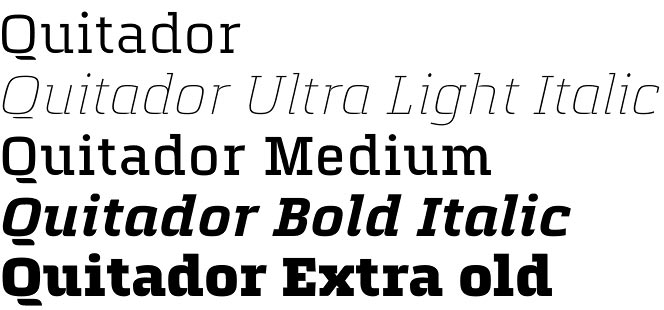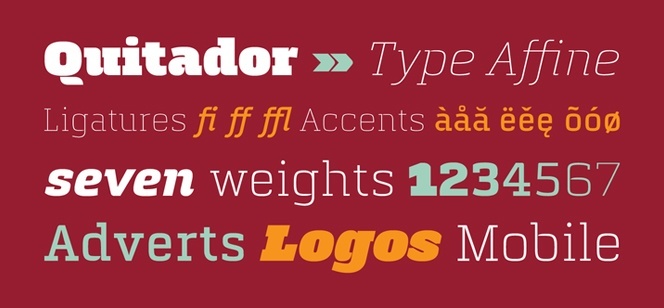
Quitador
Quitador typeface is designed by the German typographer Arne Freytag and published by Linotype. Quitador is a monolinear Slab Serif font family with humanistic touch. It comes in 7 weights (from Ultra Light to Ultra Bold) plus their true Italics, providing great opportunities for different types of work. The legibility of Quitador is great due to the way the letter shapes were designed – with larger x-heights and shorter bottom and top lengths. This gives the typeface a friendly and generous appearance which makes it suitable for wide range of applications – posters, titles, headlines, smaller text sizes, logos, magazines, advertising, mobile devices etc. In addition, it has to be mentioned that the origins of Quitador typeface family can be traced back to a 19th Century type style. Although it possesses all the features that a modern font requires, while reading it you will feel some of the typical characteristics of the 1800s as it is powerful, solid and dependable.